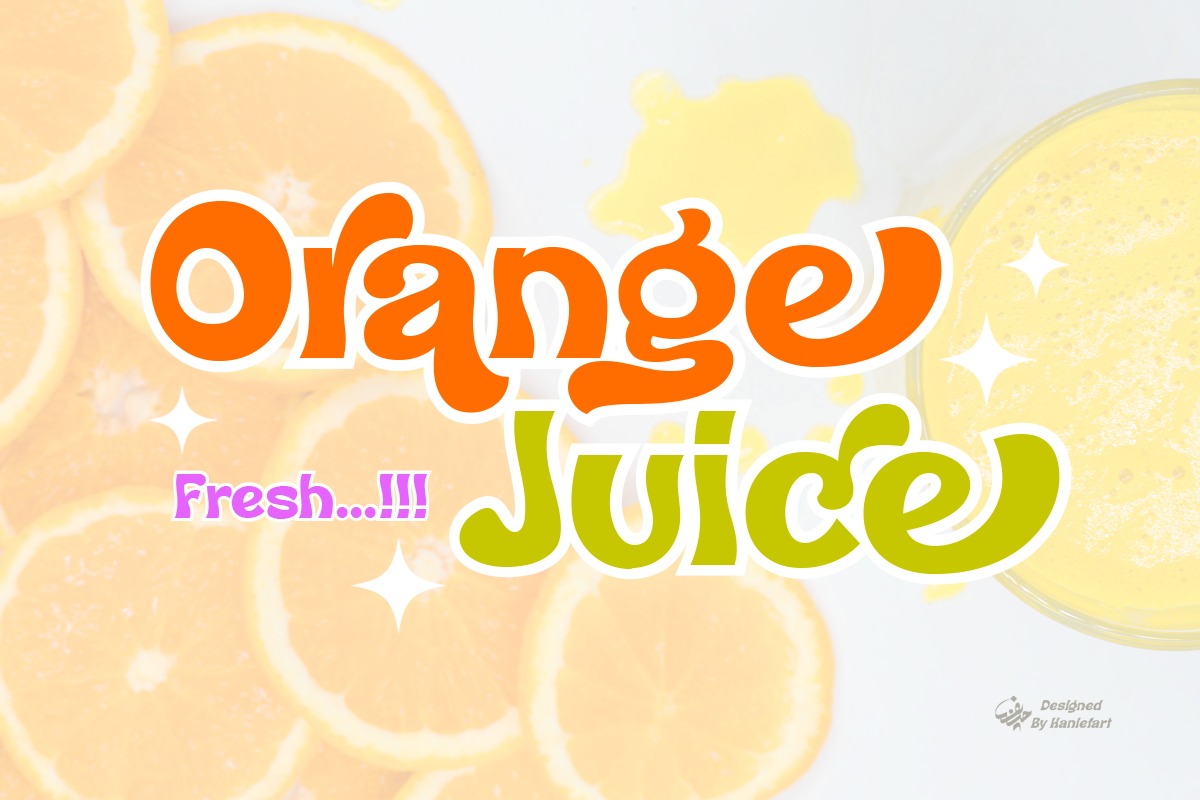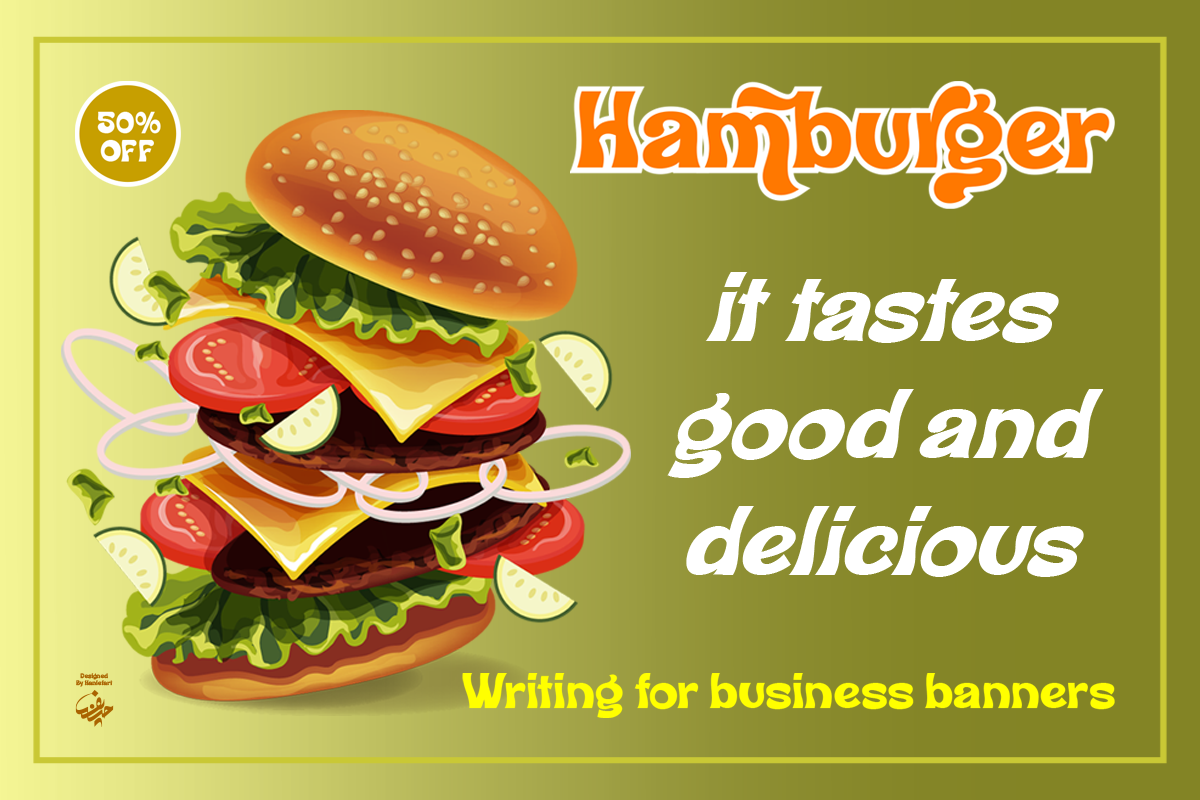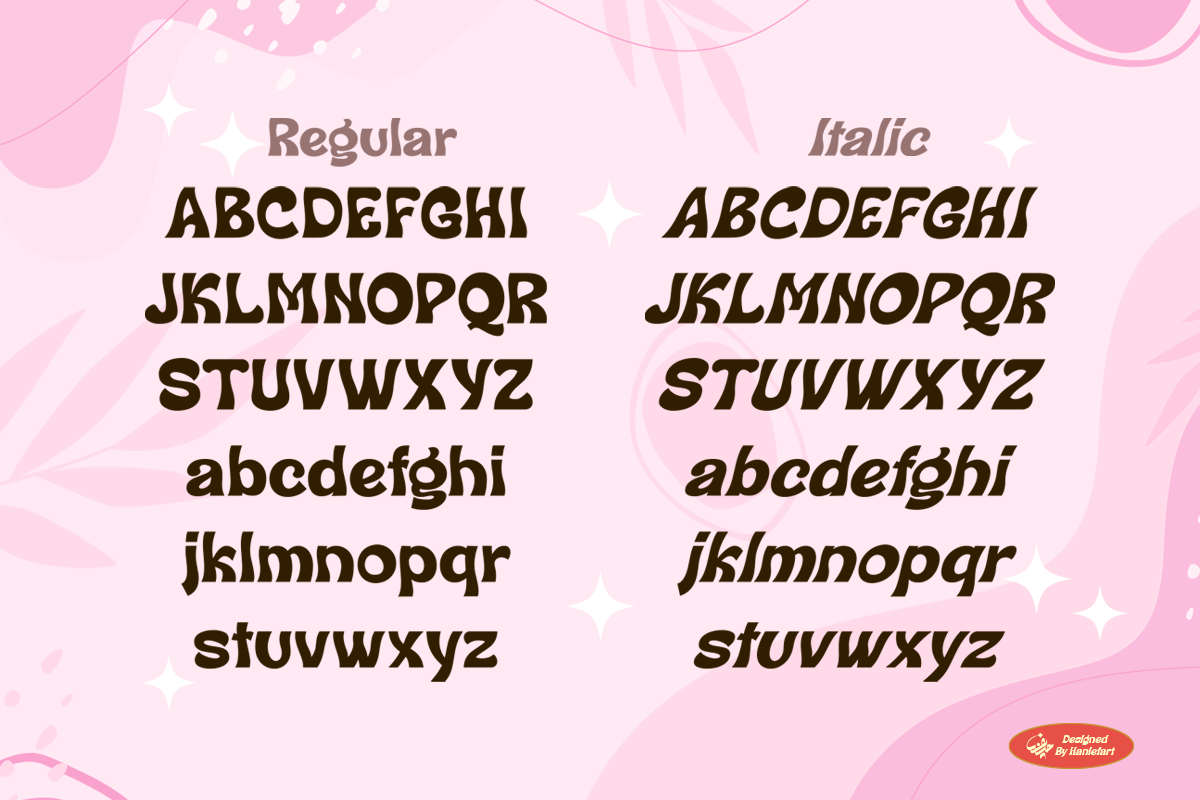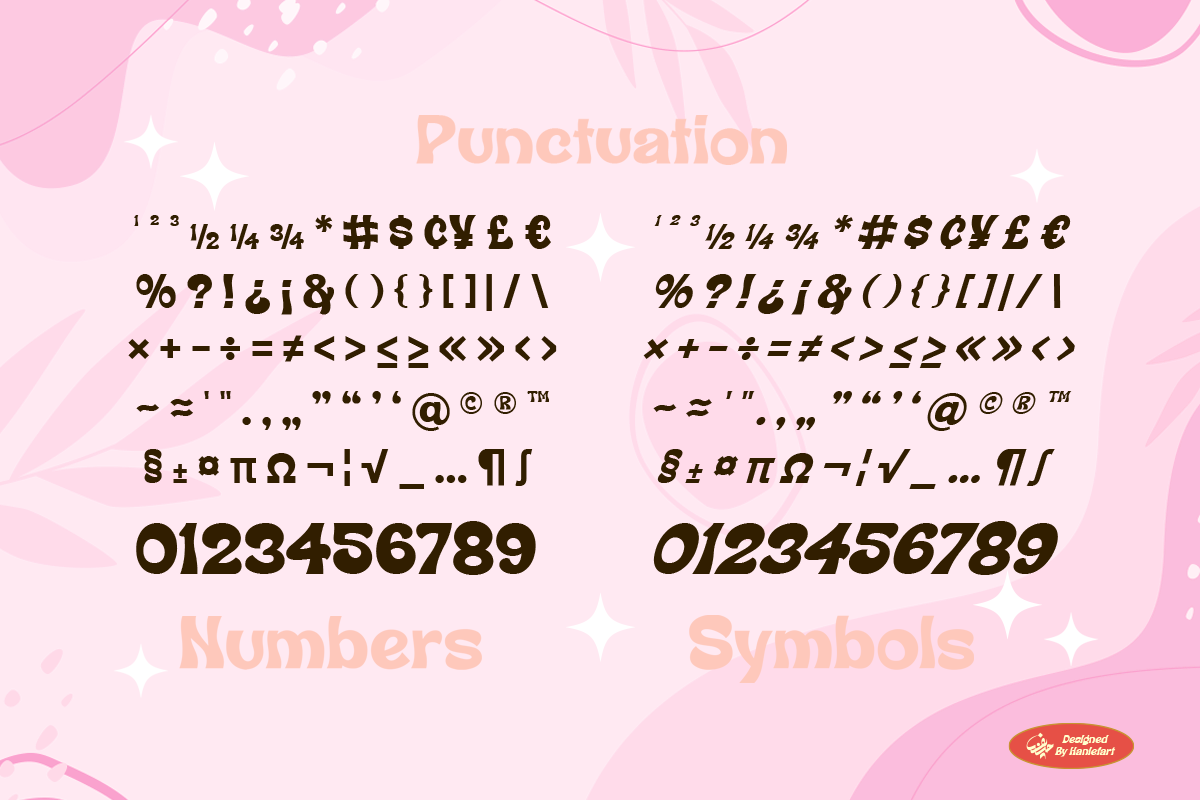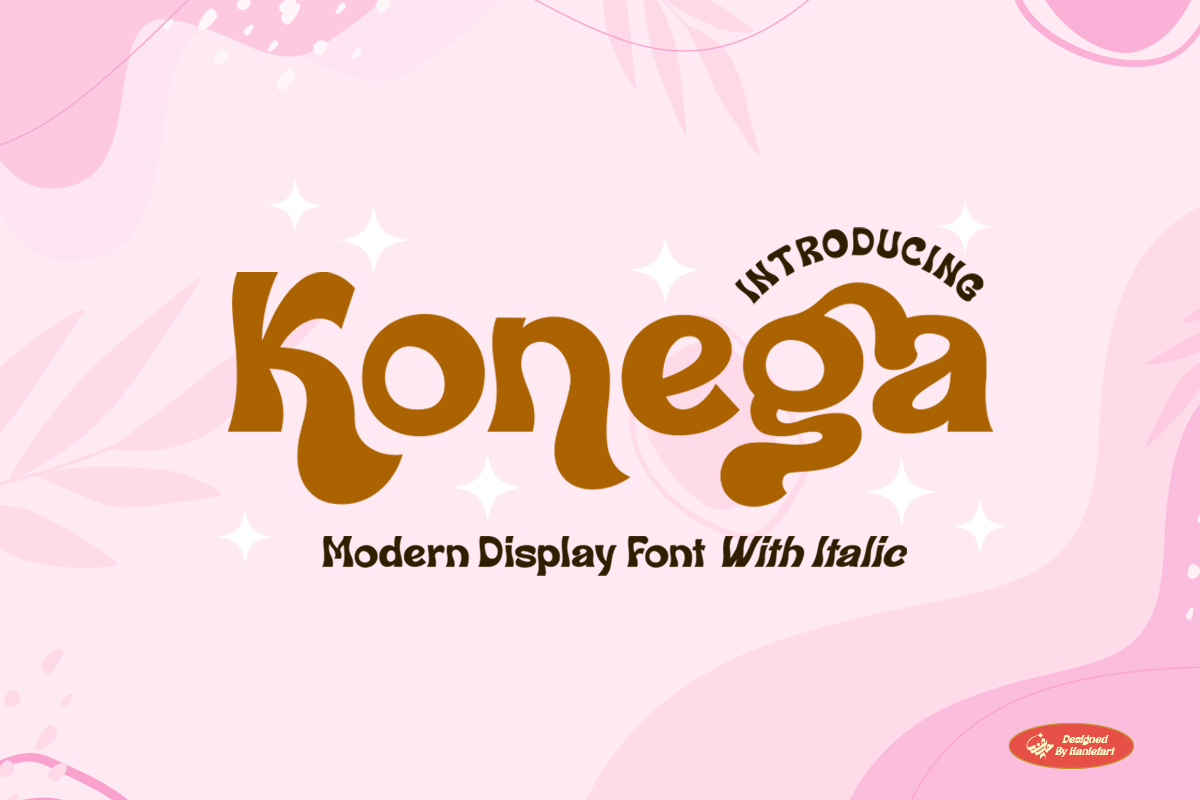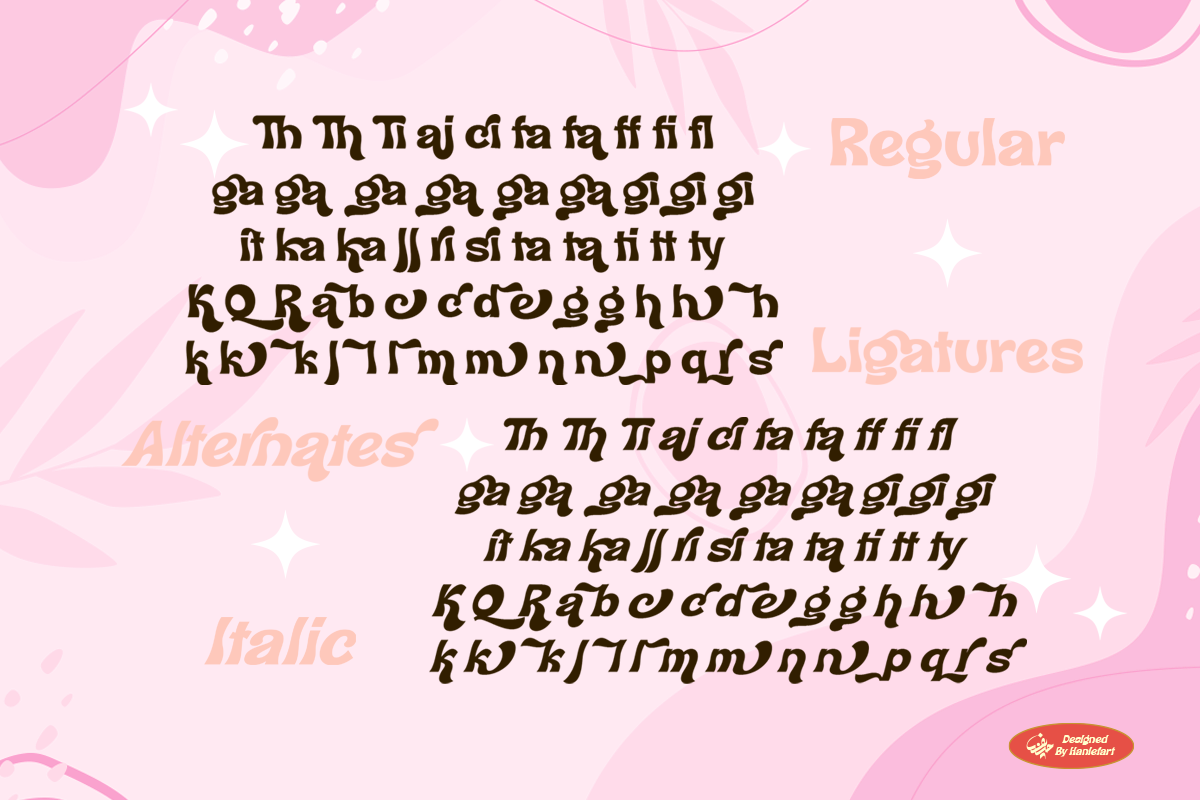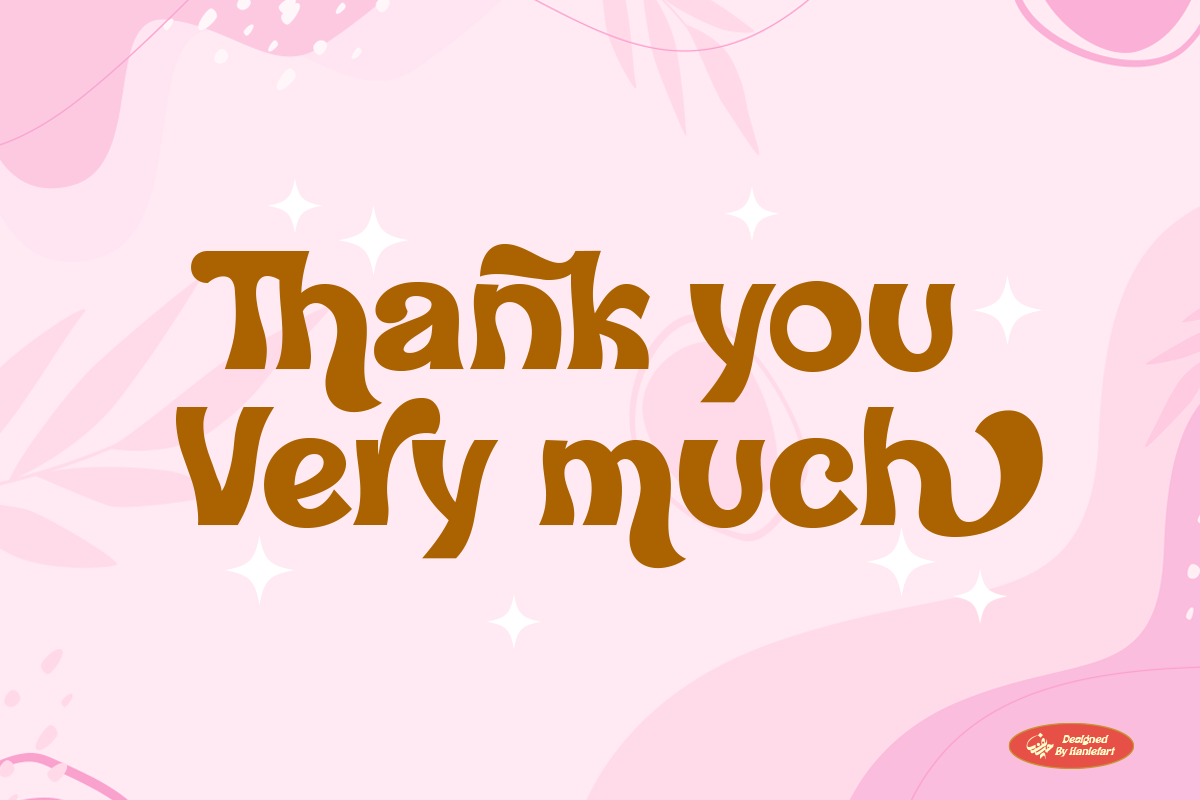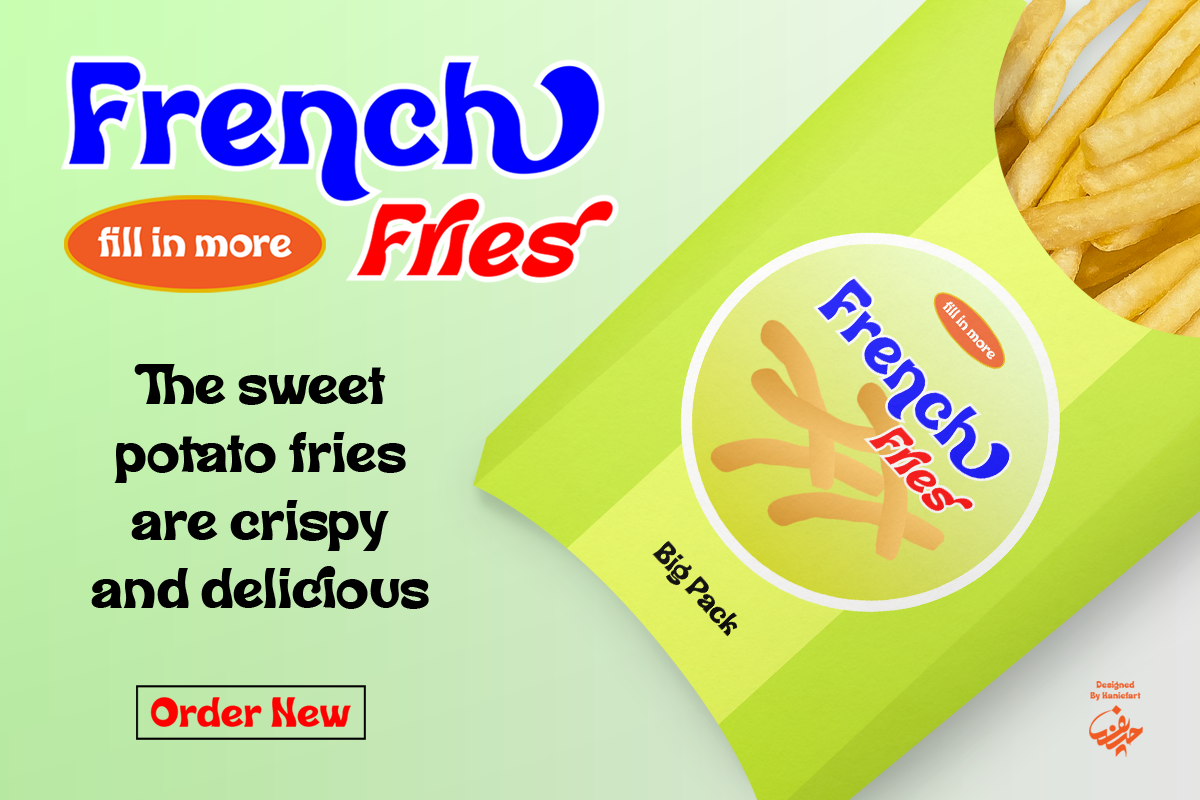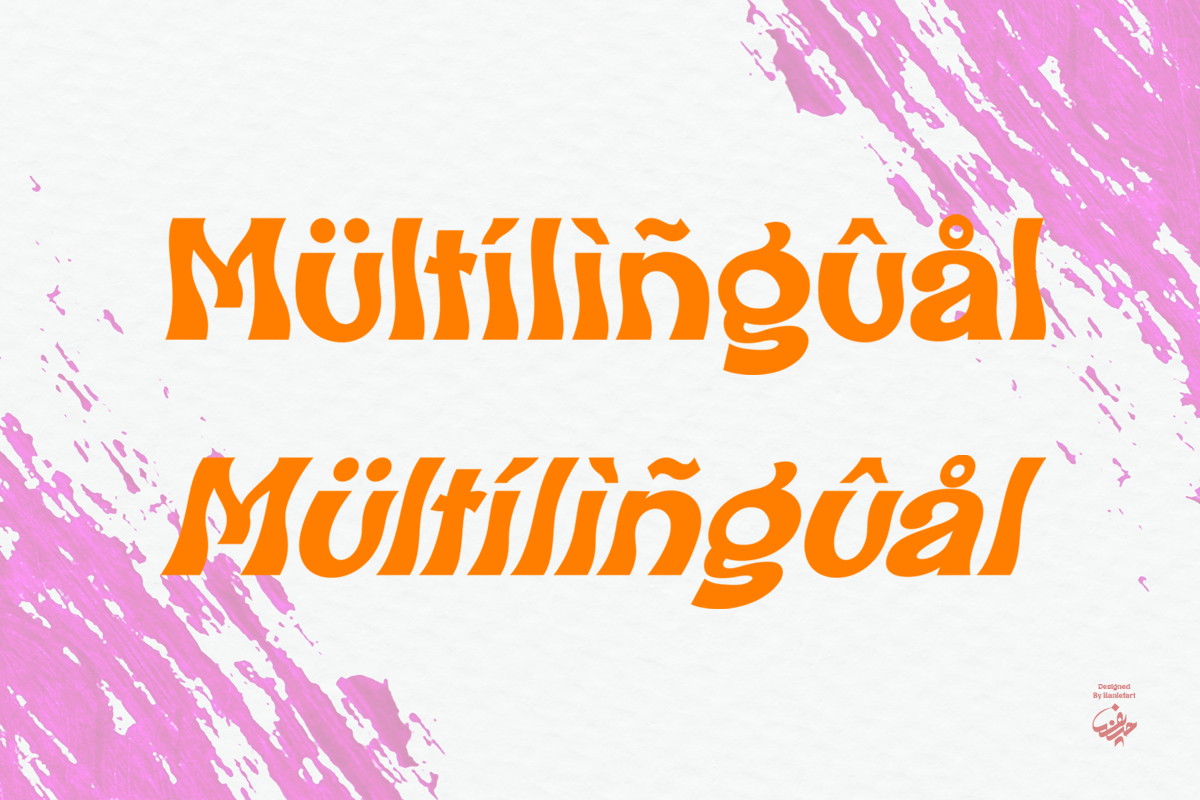
Konega - Display Font
Konega a distinctive, handcrafted typeface showcasing a unique blend of modernity and style. Crafted with precision and versatility, Konega features both a regular and italic typeface and comes in uppercase, lowercase, ligature, and alternate variations. Its elegant aesthetic makes Konega a perfect choice for diverse applications from branding for corporate enterprises, gracing the pages of chic magazines to adding a touch of class to comic books, to creating striking impressions on t-shirts or commanding attention on banners, and more. Konega will infuse charm and character into your every project. Embrace the sophistication and flexibility of Konega, the typeface that speaks volumes.